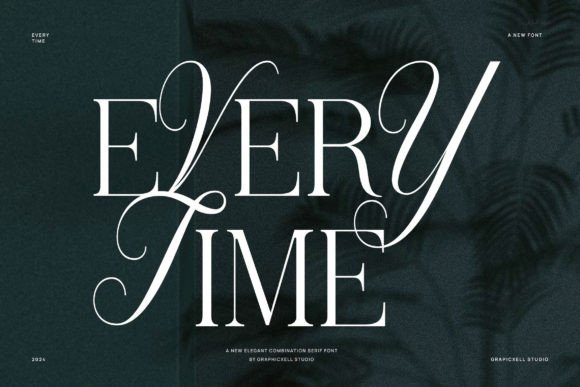
Introducing Every Time Font: The Ultimate Serif Font for Elegant Designs
In the world of typography, fonts play a crucial role in conveying the tone and personality of a brand or design. When it comes to creating elegant and sophisticated designs, serif fonts are often the go-to choice. One such font that has gained popularity among designers is the Every Time font. In this article, we’ll explore the features and benefits of Every Time font and how it can elevate your designs to the next level.
What is Every Time Font?
Every Time is a serif font that combines a classy and modern style, making it perfect for a wide range of design projects. Its unique blend of traditional and contemporary elements sets it apart from other serif fonts, making it a versatile choice for designers.
Key Features of Every Time Font
- Serif Font: Every Time font is a serif font, characterized by small lines or flourishes at the ends of the letters. This feature gives the font a classic and sophisticated look.
- Classy and Modern Style: The font’s design combines traditional serif elements with modern twists, making it suitable for both traditional and contemporary designs.
- Elegant Touch: Every Time font adds an elegant touch to any design, making it perfect for projects that require a high level of sophistication.
Use Cases for Every Time Font
Every Time font is an incredibly versatile font that can be used in a wide range of design projects, including:
- Branding Projects: Use Every Time font to create a sophisticated brand identity that exudes elegance and refinement.
- Logos: The font’s unique design makes it perfect for creating logos that require a high level of sophistication.
- Wedding Designs: Every Time font is an excellent choice for wedding designs, such as invitations, stationery, and wedding announcements.
- Social Media Posts: Use the font to create elegant and engaging social media posts that stand out from the crowd.
- Advertisements: Every Time font is perfect for creating ads that require a high level of sophistication and elegance.
- Product Packaging: Use the font to create product packaging that exudes elegance and refinement.
- Product Designs: Every Time font can be used in product designs, such as labels, tags, and other product-related materials.
- Photography: Use the font to create elegant watermarks or overlays for your photographs.
- Invitations: Every Time font is perfect for creating formal invitations, such as business invitations or formal event invitations.
- Stationery: Use the font to create elegant stationery, such as letterheads, envelopes, and notecards.
Benefits of Using Every Time Font
Using Every Time font in your designs offers several benefits, including:
- Elegance: The font adds an elegant touch to any design, making it perfect for projects that require sophistication.
- Versatility: Every Time font is incredibly versatile and can be used in a wide range of design projects.
- Readability: The font is highly readable, making it perfect for body text and other large blocks of text.
- Uniqueness: Every Time font has a unique design that sets it apart from other serif fonts.
Tips for Using Every Time Font
Here are some tips for using Every Time font in your designs:
- Pair it with Other Fonts: Experiment with pairing Every Time font with other fonts to create a unique and visually appealing design.
- Use it for Headings: Use Every Time font for headings and titles to add an elegant touch to your design.
- Adjust the Font Size: Experiment with different font sizes to create visual hierarchy and emphasis in your design.
- Use it for Body Text: Every Time font is highly readable, making it perfect for body text and other large blocks of text.
Every Time font is a versatile and elegant serif font that can elevate your designs to the next level. Its unique blend of traditional and contemporary elements makes it perfect for a wide range of design projects, from branding and logos to wedding designs and social media posts. With its high readability and elegant touch, Every Time font is an excellent choice for designers looking to create sophisticated and refined designs.
- What is Every Time font? Every Time font is a serif font that combines a classy and modern style.
- What is Every Time font used for? Every Time font can be used in a wide range of design projects, including branding, logos, wedding designs, social media posts, and more.
- Is Every Time font readable? Yes, Every Time font is highly readable, making it perfect for body text and other large blocks of text.